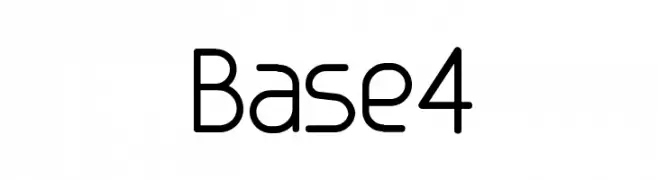
A bold, geometric font with hexagonal borders and a monogram style.
A bold, blocky font with irregular, jagged edges for a playful look.
A bold, pixelated font with a geometric, retro digital style.
A bold, geometric font with a blocky, sideways design.
A playful, hand-drawn font with bold, irregular strokes and a whimsical style.
A monospaced, typewriter-inspired font with blocky, rounded characters.
A bold, decorative font with intricate Gothic-inspired patterns.
A playful 3D block font with characters inside outlined cubes.
A decorative font with calligraphic elements and elegant flourishes.
A bold, expressive handwritten font with thick strokes and dynamic shapes.
A bold, calligraphic font with expressive and fluid strokes.
A flowing script font with elegant, interconnected letters and ornate flourishes.
Delicate hand-drawn floral decorative pattern.
A decorative, playful font with geometric and organic elements.
A playful, handwritten font with dynamic, cursive-like strokes.
A cursive, handwritten-style font with elegant, flowing strokes.
A playful, decorative font with floral patterns on uppercase letters and smooth, rounded lowercase letters.
A bold, geometric font with sharp angles and high contrast.
A bold, italicized font with sharp, angular characters and a dynamic slant.
A bold, 3D vintage-style font with an engraved, shadowed appearance.
A bold, 3D vintage-style font with heavy outlines and shadowing.
A bold, brush-style font with expressive, hand-drawn strokes.
A modern sans-serif font with rounded edges and uniform strokes.
A bold, rounded sans-serif font with a modern and friendly appearance.
A bold, italic sans-serif font with smooth, rounded edges and a modern look.
A modern, italic sans-serif font with clean lines and excellent readability.
A clean, modern sans-serif font with a light weight and rounded edges.
A sleek, modern, light italic sans-serif typeface with smooth curves.
A modern, rounded sans-serif font with medium weight and excellent readability.
A modern, italic sans-serif font with medium weight and rounded edges.
A modern, rounded sans-serif font with uniform strokes and geometric influences.
A bold, rounded sans-serif font with a modern and friendly appearance.